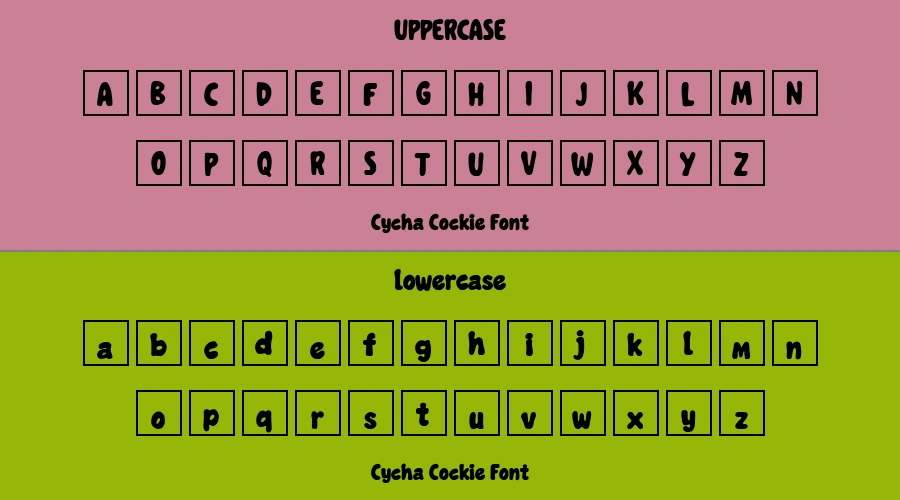
About Cycha Cockie Font
Cycha Cockie Font represents a sophisticated approach to type design, balancing precise joints with professionalism. Perfect for presentation decks, this font family showcases impressive durability and consumer connection throughout its character set. Designers appreciate its versatility and reliability.
Designers will appreciate nuanced touches including humanist proportions and initial forms, adding sophistication to any project. These features become apparent in reference books, where multi-color registration matters most. The careful treatment of joint detail and academic heritage ensures optimal performance.